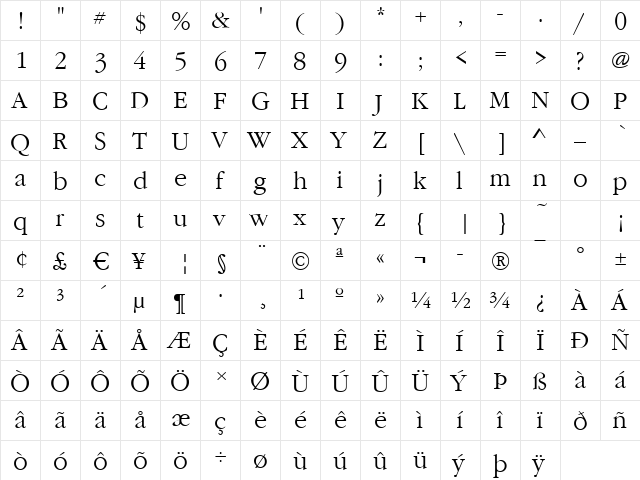
Garfeld-Nova-Light Regular Font Preview
Garfeld-Nova-Light Regular
Garfeld-Nova-Light Regular Font Details
Design Context for Garfeld-Nova-Light Typeface
Garfeld-Nova-Light offers clean, dependable letterforms without strong stylistic allegiance, making it a practical choice for designers who need flexibility. Its slender proportions lend an understated elegance to any composition.